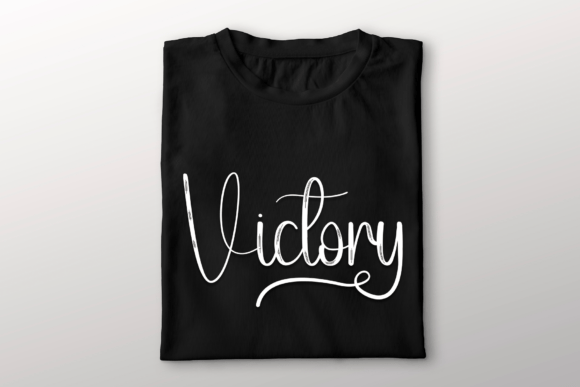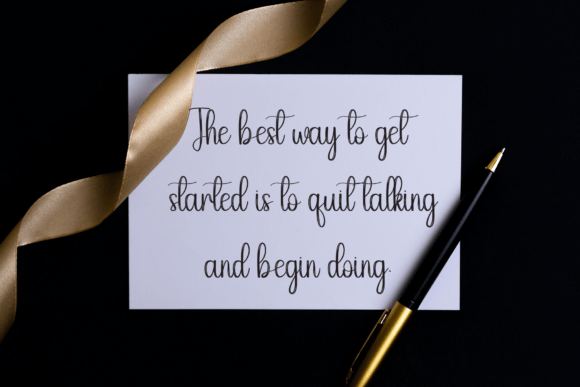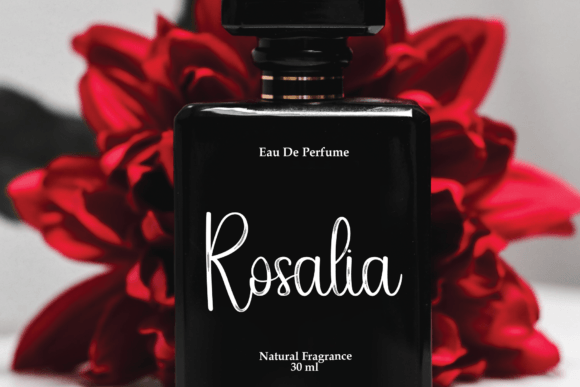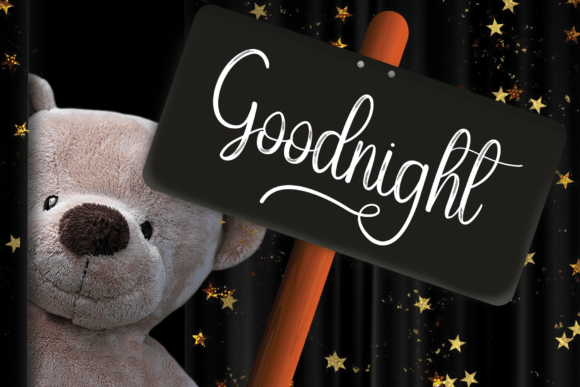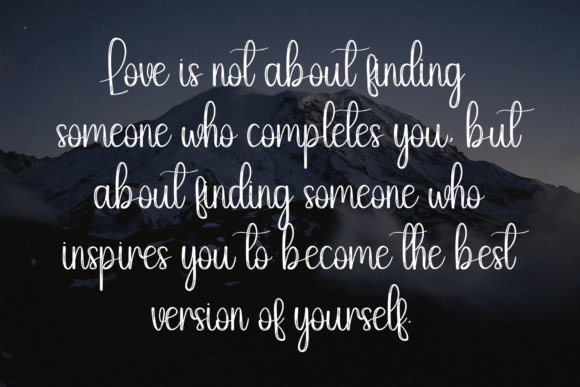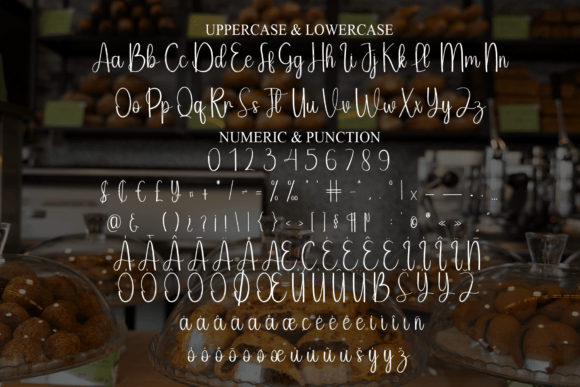
Bakery Font: The Sweetest Addition to Your Design Collection
Immerse yourself in the gentle charm that is the Bakery Font, a handwritten display font that exudes a sweet, friendly demeanor. This font is the perfect choice for designers and crafters looking to add a touch of warmth and personality to their projects. With its fun and playful appeal, Bakery Font is sure to capture hearts one letter at a time.
The Perfect Blend of Playfulness and Elegance
Bakery Font is a masterful blend of playfulness and elegance, making it an ideal choice for a wide range of design applications. Whether you’re creating wedding invitations, greeting cards, or any other design that craves a dash of exuberance, this font is sure to deliver. Its sweet and friendly demeanor is sure to evoke feelings of joy and happiness, making it the perfect choice for designers looking to create designs that are both visually appealing and emotionally resonant.
Unleash Your Creativity with Bakery Font
With Bakery Font, you can unleash your creativity and take your designs to the next level. This font is tailored to elevate your design experience, providing a unique and captivating visual appeal that is sure to set your designs apart. Whether you’re a seasoned designer or a crafty DIY enthusiast, Bakery Font is the perfect choice for anyone looking to add a touch of personality and whimsy to their projects.
Key Features of Bakery Font
- Handwritten Display Font: Bakery Font is a beautiful handwritten display font that is perfect for adding a personal touch to your designs.
- Sweet and Friendly Demeanor: This font exudes a sweet and friendly demeanor that is sure to evoke feelings of joy and happiness.
- Fun and Playful Appeal: Bakery Font has a fun and playful appeal that makes it perfect for designs that crave a dash of exuberance.
- Perfect for Wedding Invitations and Greeting Cards: This font is ideal for wedding invitations, greeting cards, and any other design that requires a touch of elegance and sophistication.
Tips for Using Bakery Font in Your Designs
Here are a few tips for using Bakery Font in your designs:
- Pair it with Bold Colors: Bakery Font looks amazing when paired with bold colors. Try pairing it with bright and bold hues to create a visually appealing design.
- Use it for Headings and Titles: This font is perfect for headings and titles. Use it to add a touch of personality and whimsy to your designs.
- Experiment with Different Sizes: Don’t be afraid to experiment with different sizes. Bakery Font looks amazing in large and small sizes, making it perfect for a wide range of design applications.
Why Designers and Crafters Love Bakery Font
Designers and crafters love Bakery Font for its unique and captivating visual appeal. This font is perfect for anyone looking to add a touch of personality and whimsy to their designs. With its sweet and friendly demeanor, Bakery Font is sure to evoke feelings of joy and happiness, making it the perfect choice for designers looking to create designs that are both visually appealing and emotionally resonant.
In conclusion, Bakery Font is a beautiful handwritten display font that is perfect for designers and crafters looking to add a touch of warmth and personality to their projects. With its fun and playful appeal, sweet and friendly demeanor, and versatility, Bakery Font is sure to capture hearts one letter at a time. Whether you’re creating wedding invitations, greeting cards, or any other design that craves a dash of exuberance, this font is sure to deliver.
Get Ready to Fall in Love with Bakery Font